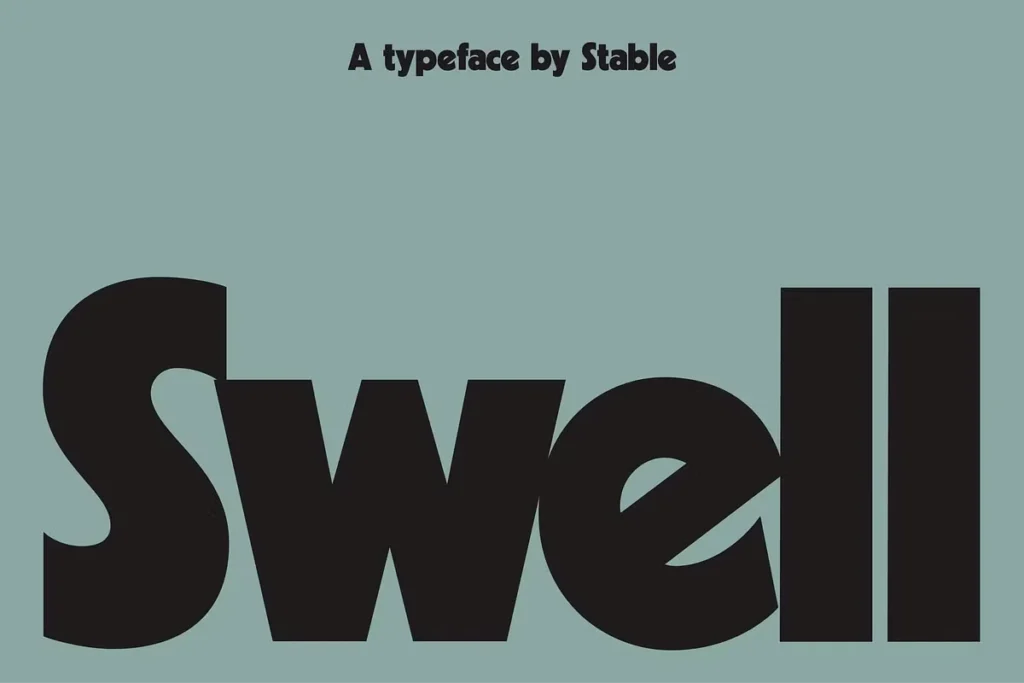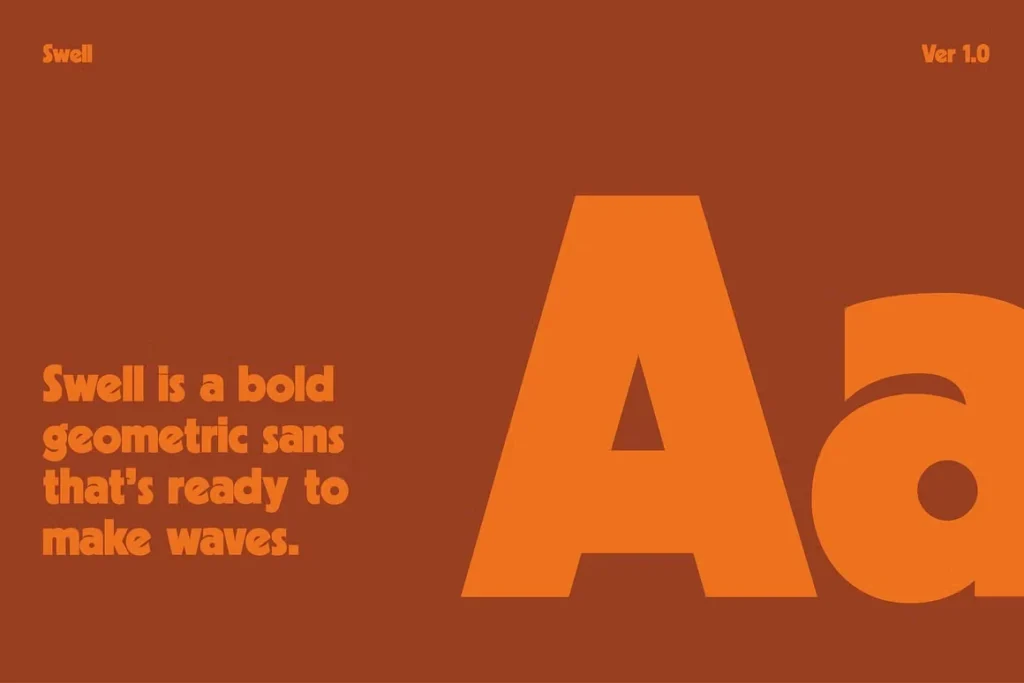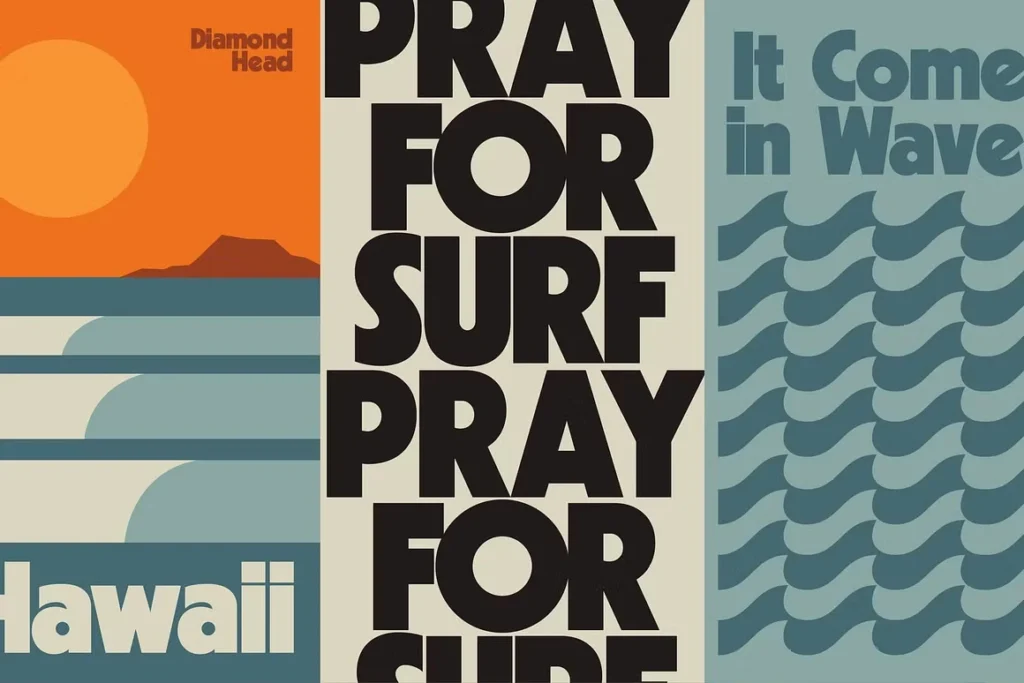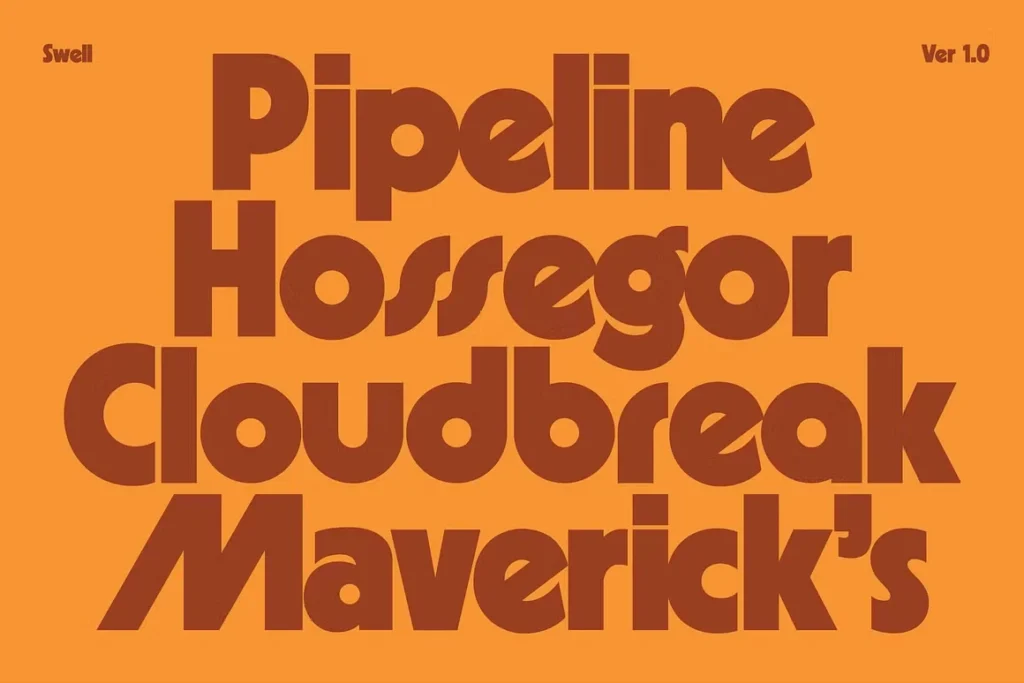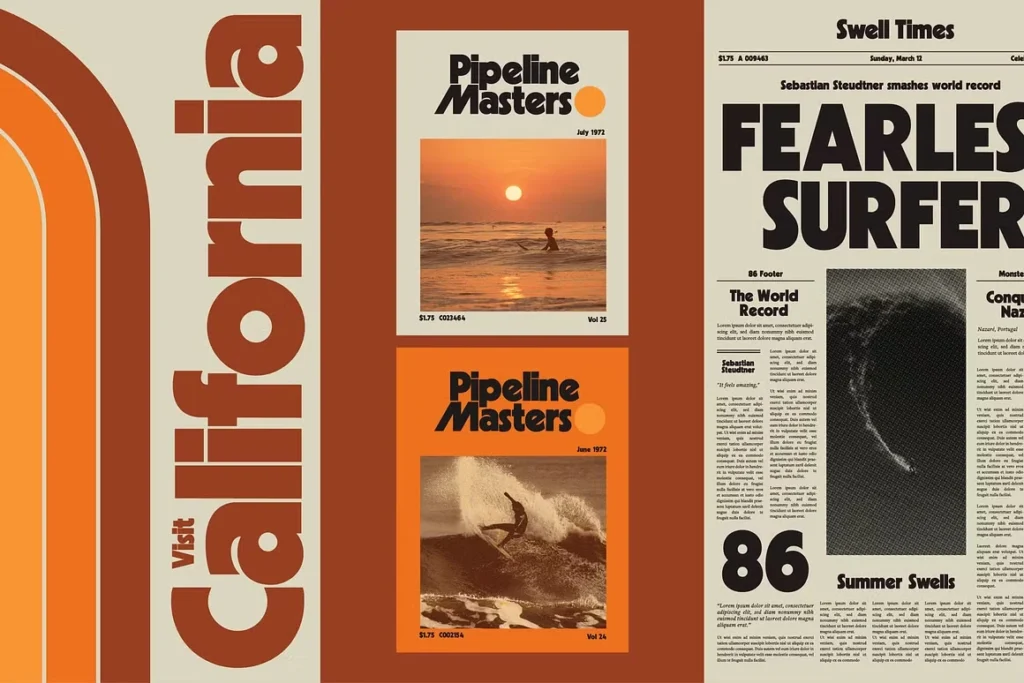
About Swell Font
I recently discovered the Swell typeface while searching for the perfect font for a high-energy branding project. As a typographer and graphic designer with 8+ years in the field, I’m always on the lookout for functional fonts with personality.
Swell Font immediately caught my eye during a late-night design session when I needed something bold yet playful. I’ve since used this geometric sans for a surf shop rebrand and a California-themed restaurant menu.
The results were so impressive that I had to share my experience with fellow designers looking for that perfect display font with extra flair.
The Font and Designer
Swell Font is a fresh new take on the timeless classic, Kabel Black, created by the foundry Stable. This bold, geometric sans-serif font takes what worked about the original and infuses it with modern energy inspired by the real-world signs and scenery of California to build fun, functional designs. The designer behind Stable has crafted something that respects typographic history while adding contemporary flair.
What makes Swell Type special is how it draws inspiration from multiple iconic typefaces. You can spot influences from classics like Avante Garde, Marvin, and Blippo throughout its character set. This sans-serif font maintains the structural integrity of its geometric roots while incorporating playful elements inspired by other classics that give designs an instant personality boost.
The Swell typography represents part of a larger trend where designers are reimagining beloved fonts from Bauhaus traditions rather than starting from scratch. This approach creates typefaces with both nostalgic appeal and modern functionality. Swell Regular achieves this balance perfectly, offering a font that feels both friendly and fresh simultaneously – perfect for brands wanting to appear established yet contemporary.
Features of Swell Font
Swell Font comes packed with features that make it a versatile choice for creative projects. The complete character set includes uppercase, lowercase letters, numbers, and punctuation – giving designers full flexibility for any text application.
The most exciting aspect of Swell is its over 50 alternative glyphs inspired by other classics like Avante Garde. These special characters provide creative options for customizing your designs without losing the font’s distinctive personality. Need a unique uppercase “A” for your logo? Or a special punctuation mark that stands out? Swell likely has an alternative ready to use.
The bold weight gives Swell tremendous visual impact, making it perfect for headlines and attention-grabbing text in print or digital marketing. Its friendly yet confident character shapes create an approachable vibe without sacrificing professionalism. The letterforms maintain excellent consistency while incorporating just enough quirky details to make text set in Swell instantly recognizable.
Swell Font thrives in projects needing bold personality and clear communication. It’s perfect for logo design, particularly for brands wanting to appear confident yet approachable. The geometric structure and distinctive details help create memorable brand identities that stand out from competitors using more common sans-serif fonts.
Print applications like posters, packaging, and magazine headlines showcase Swell’s visual impact beautifully. The font creates an instant California vibe, as it takes inspiration from the scenery of California to build fun, engaging visuals. This makes it particularly effective for brands with connections to surf culture, beach life, or west coast aesthetics.
Digital applications benefit from Swell’s clarity and personality too. Website headlines set in Swell immediately establish a brand’s tone, while social media graphics gain stopping power through its distinctive shapes. Advertising campaigns using Swell consistently across platforms create strong recognition and lower bounce rates.
This font works wonderfully for businesses in creative fields, food and beverage brands with casual positioning, and lifestyle companies targeting younger demographics. Swell Type shines whenever you need text that feels fun and friendly while maintaining professional quality and enhancing user experience.